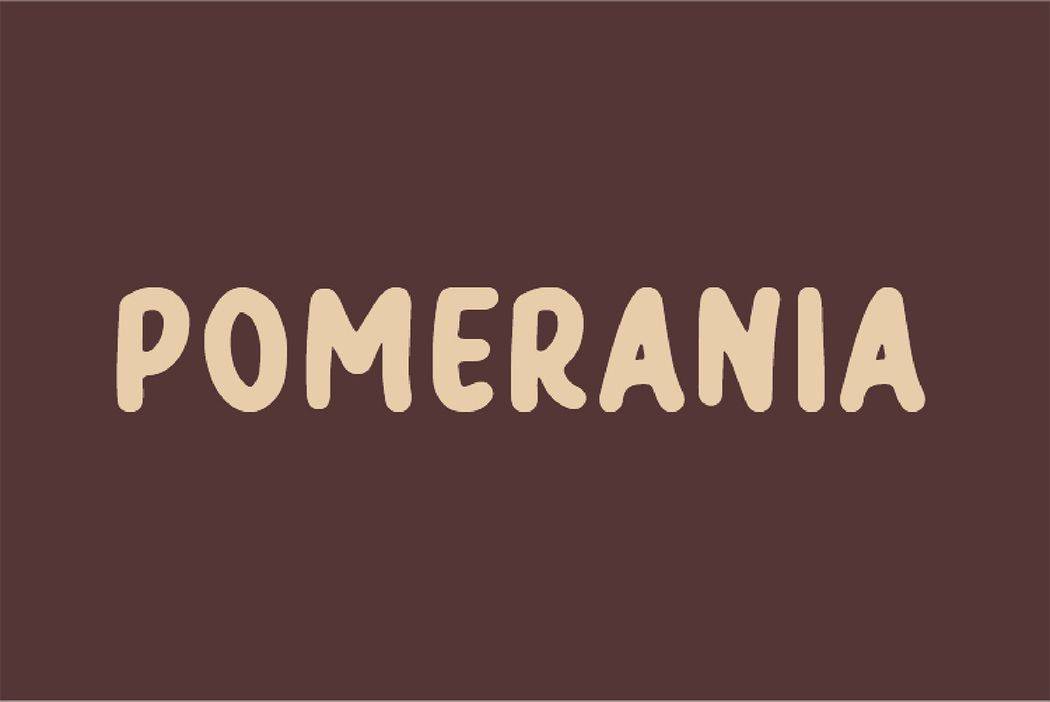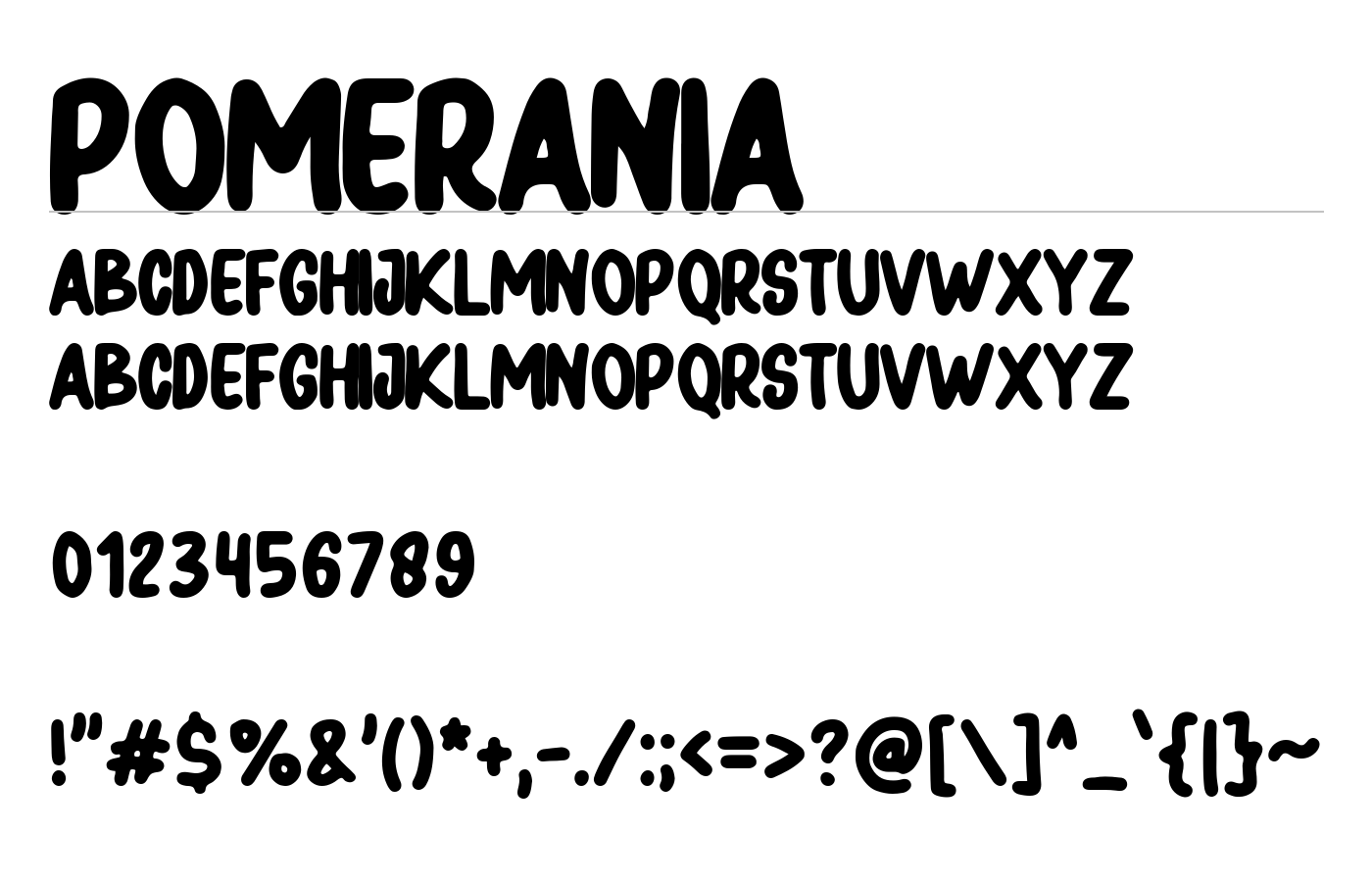
Pomerania is a bold, playful sans-serif font with a friendly, hand-drawn feel. Its rounded, irregular letterforms and lively shapes give it an informal, approachable personality, making it perfect for fun branding, children's projects, and casual headlines that need a warm, inviting touch. This font works well where a personal, cheerful vibe is desired, standing out with its unique charm and strong presence.
Pomerania Font
About Pomerania Font